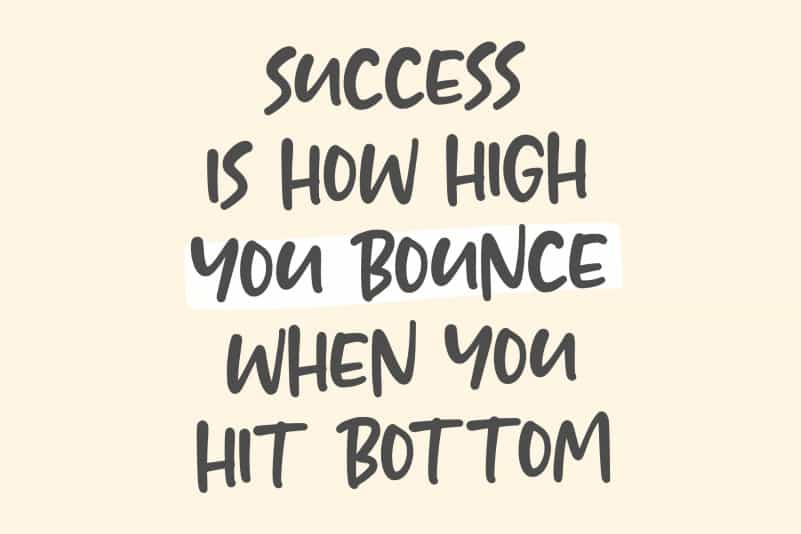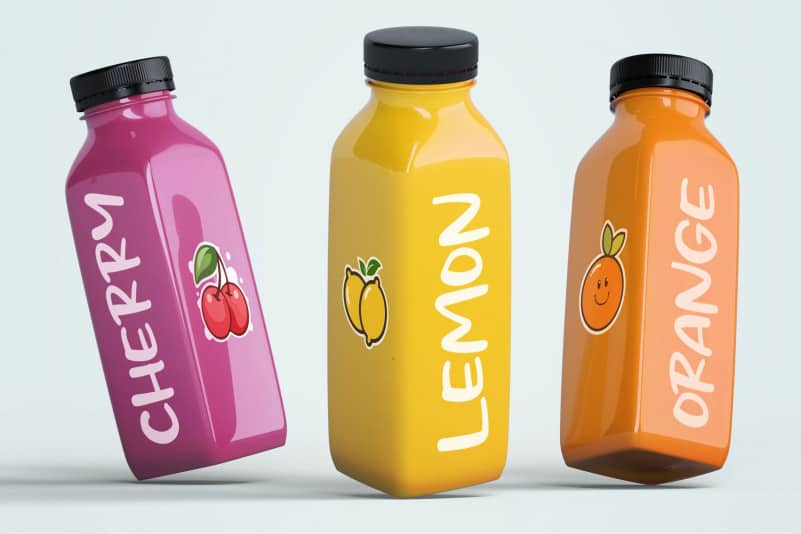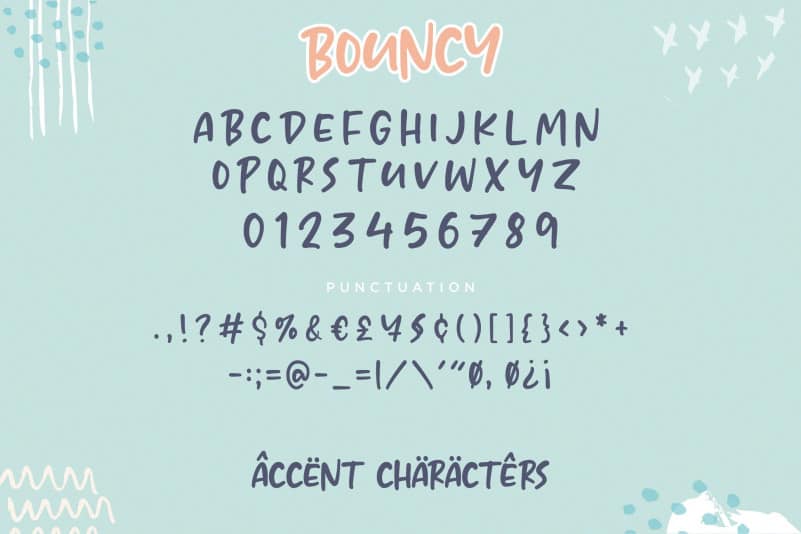
Bouncy Lovely Handwritten Font
Proudly Present, Bouncy Lovely Handwritten Font.
BOUNCY is a Lovely Cute Handwritten font.
It is perfect for product packaging, branding project, megazine, social media, wedding, or just used to express words above the background.